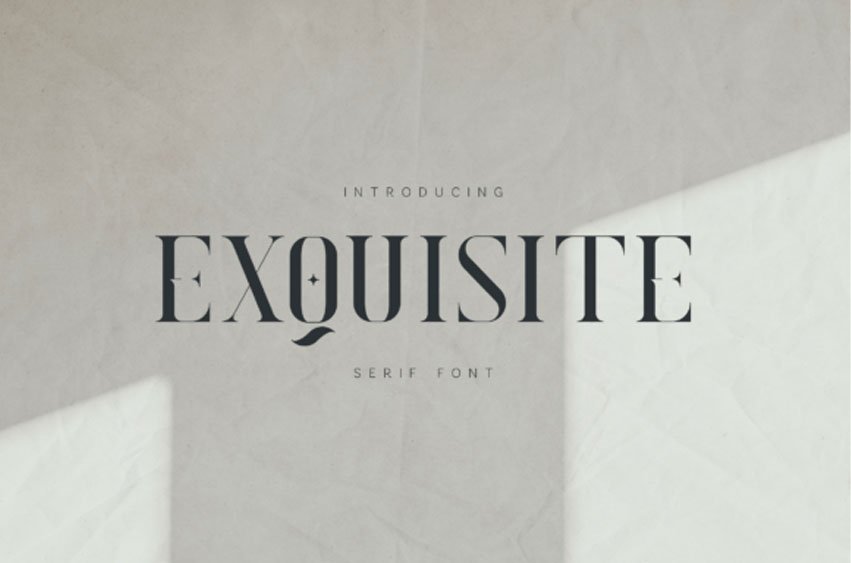
Exquisite Font is a refined serif font designed to bring elegance, clarity, and timeless sophistication to modern typography. Inspired by editorial layouts and high-end print design, this typeface blends classic serif proportions with subtle contemporary details, making it perfect for both luxury and minimalist projects.
With sharp contrasts, graceful curves, and beautifully balanced letterforms, Exquisite excels in headlines, branding, magazines, posters, packaging, and premium digital design. Its strong typographic presence ensures readability while maintaining a distinctive, expressive character.
Whether you’re crafting editorial headlines, fashion branding, or elegant visual identities, Exquisite offers a timeless serif solution built to elevate your design work.